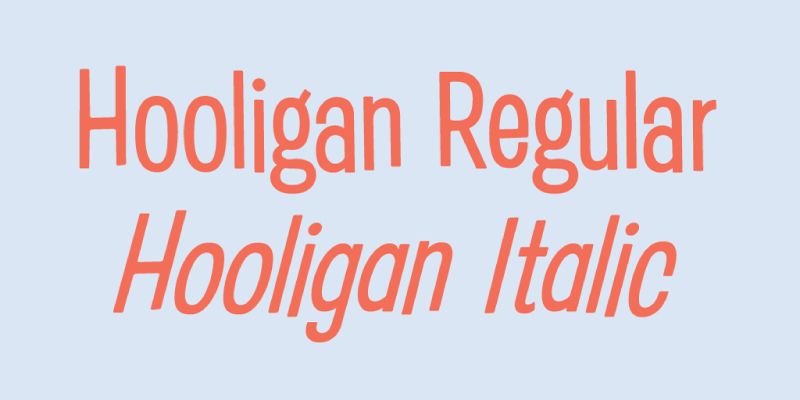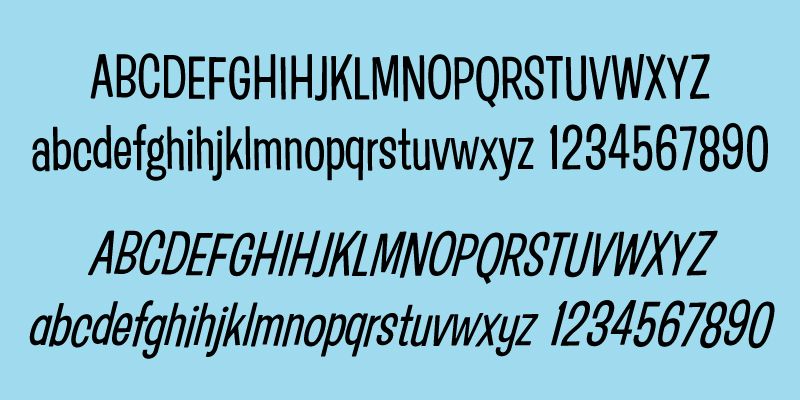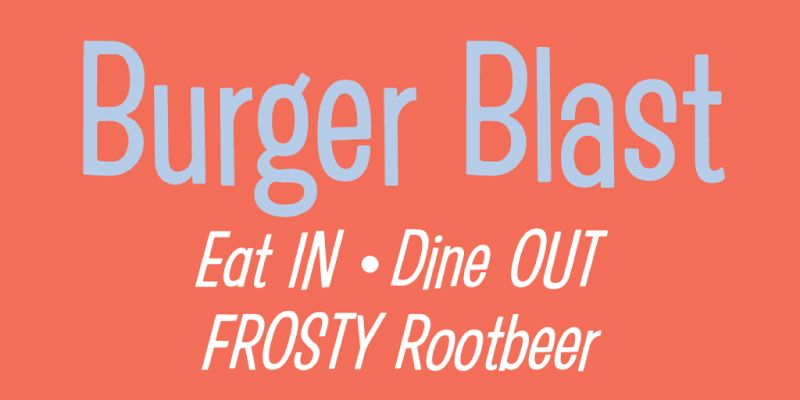
Hooligan is a Jukebox original, partially based on an old photo-typositing face from the 1950s. Bursting with mid-century charm, Hooligan’s modulated baseline gives it a touch of whimsy.